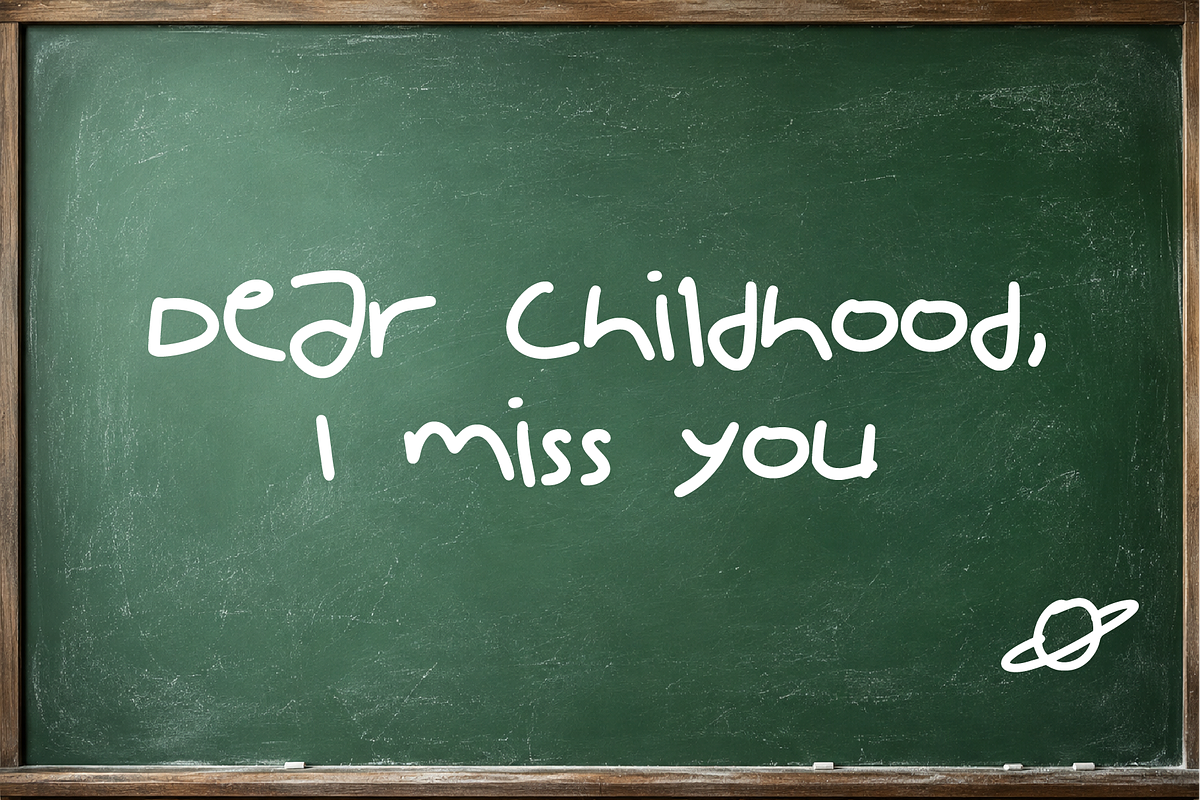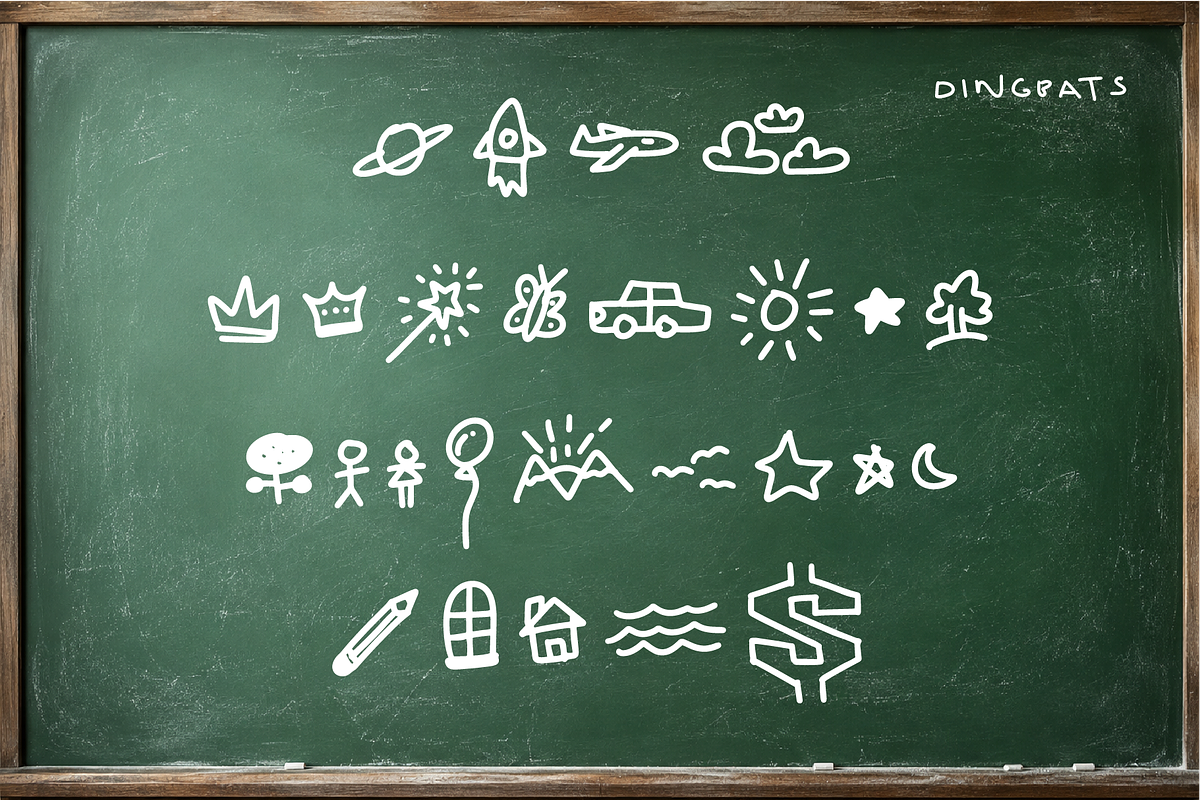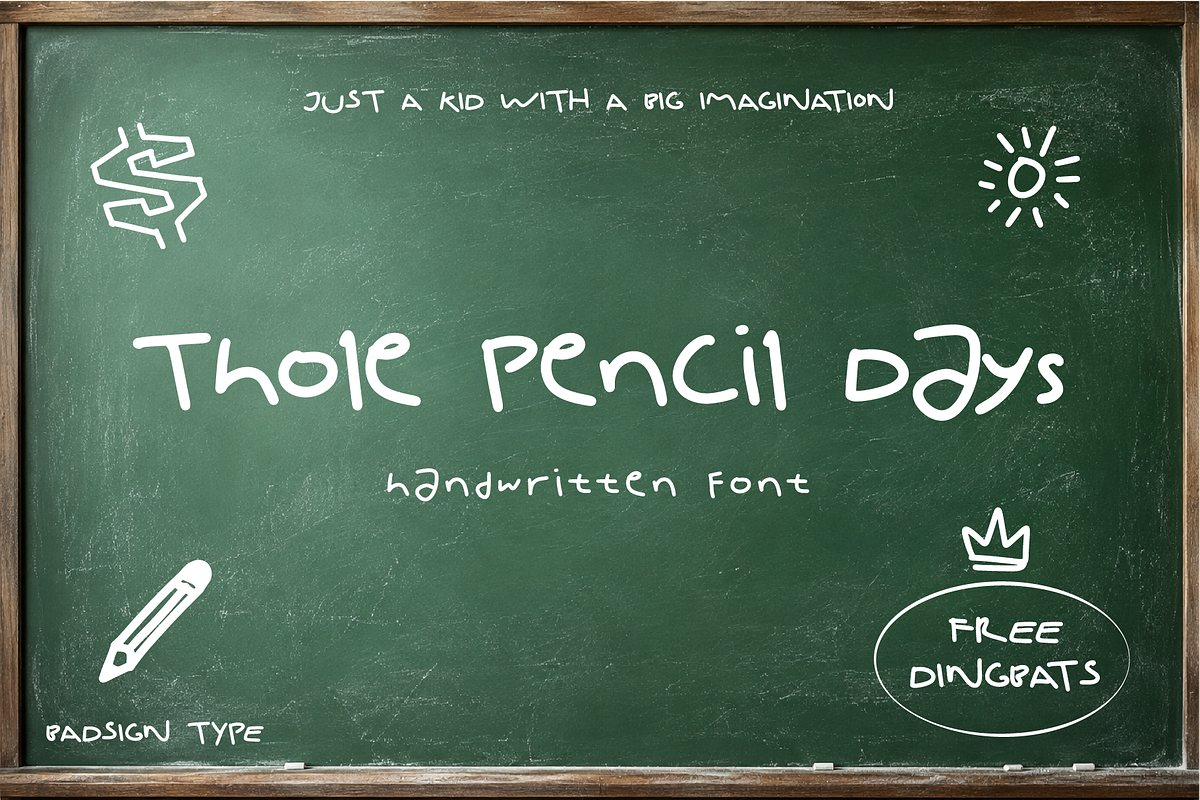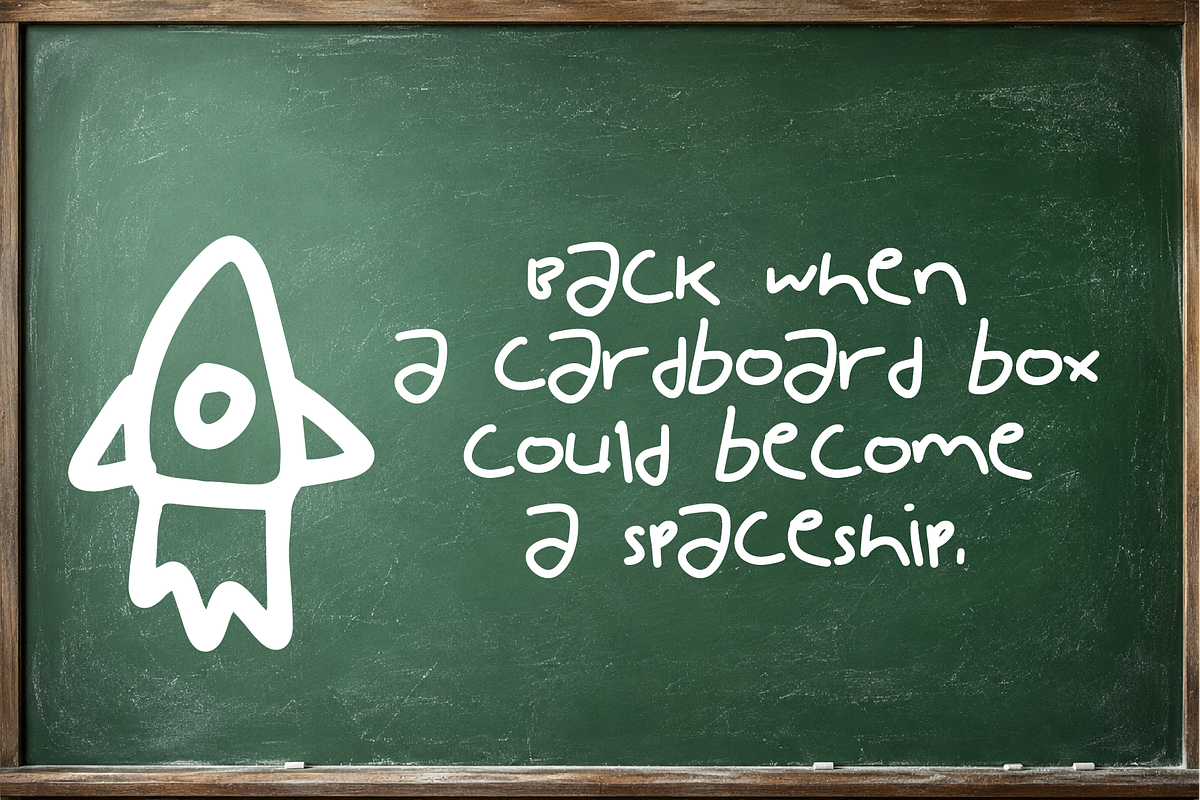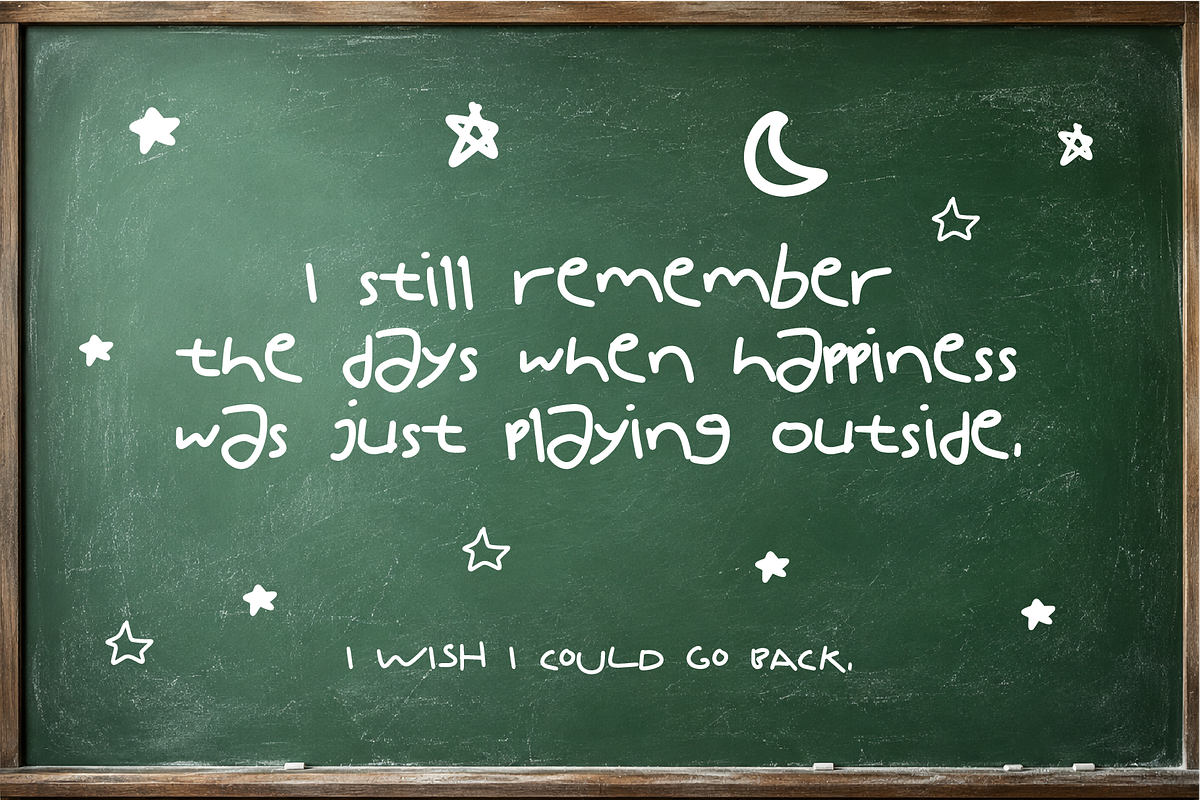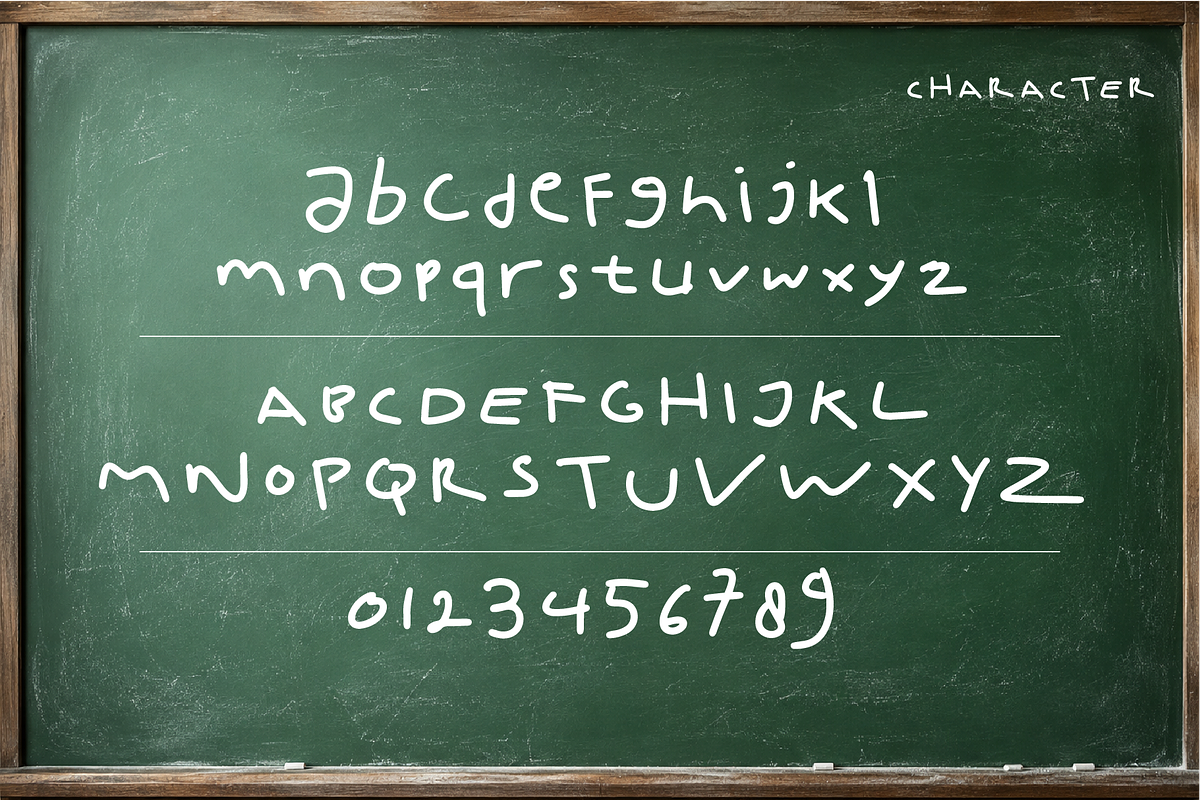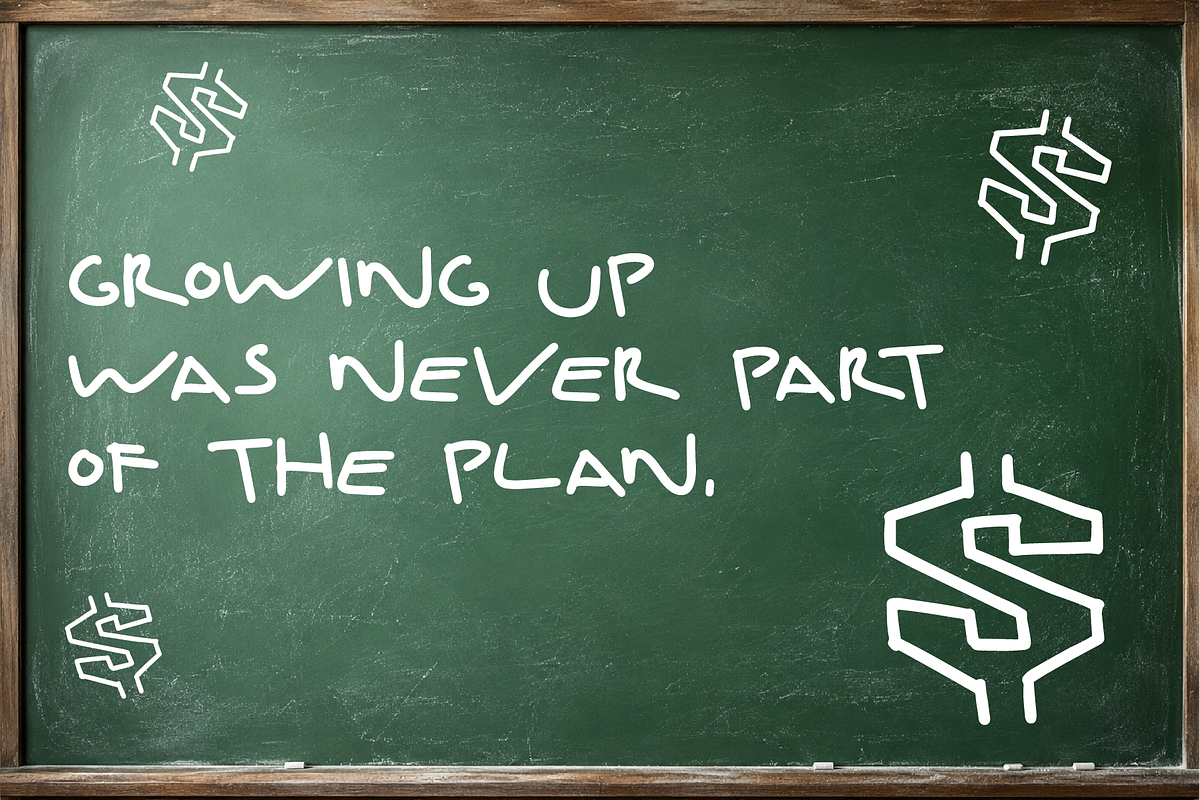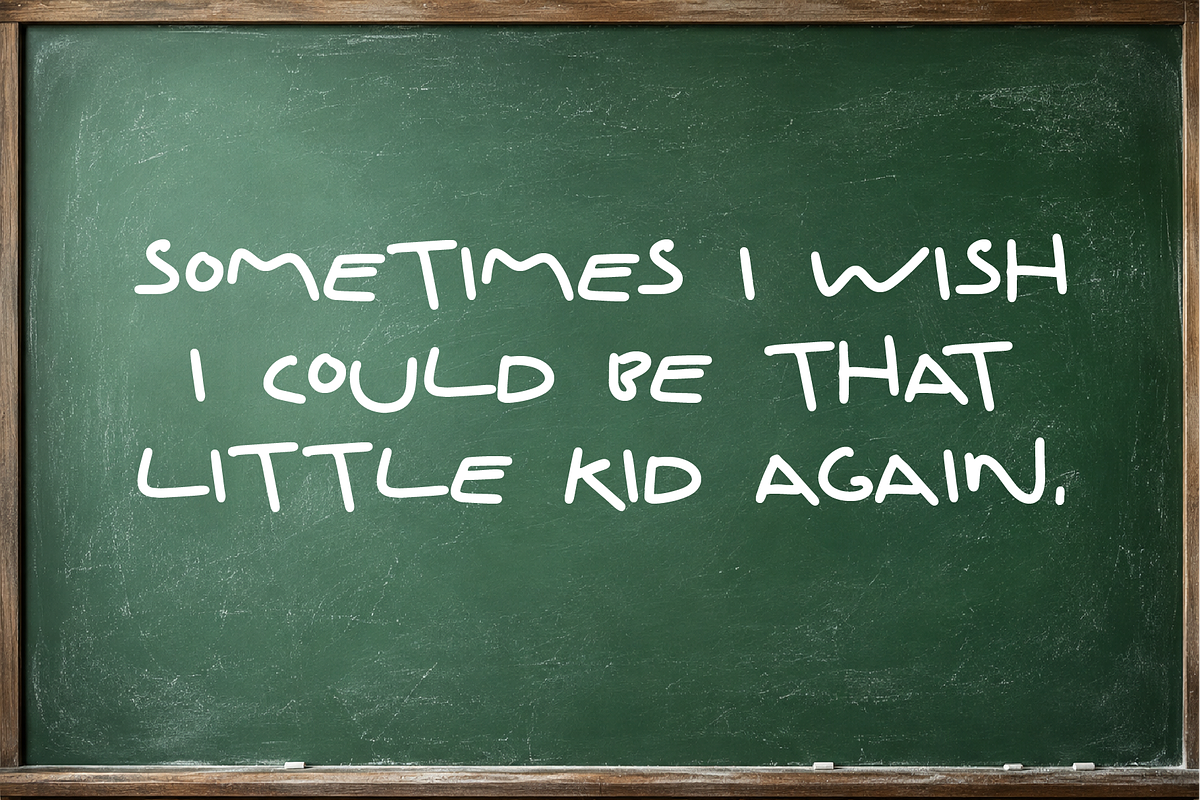
Thole Pencil Days – Hand Drawn Font
Thole Pencil Days is a playful hand-drawn pencil font inspired by the charm of childhood handwriting. With its natural, imperfect strokes and sketchy pencil character, it brings a warm, nostalgic, and handmade feeling to your designs.
This font is perfect for projects that need a fun and personal touch, from children's designs and school projects to posters, stationery, packaging, branding, social media graphics, quotes, and more.
The family also includes Thole Pencil Days Dingbats, featuring a collection of playful hand-drawn symbols and decorative elements that pair naturally with the main font.
Uppercase & lowercase letters
Hand-drawn pencil style
Natural and playful handwritten character
Includes Thole Pencil Days Dingbats
Suitable for branding, posters, stationery, packaging, invitations, social media, and more
Thole Pencil Days is made for designs that feel a little less perfect, a little more personal, and full of character.